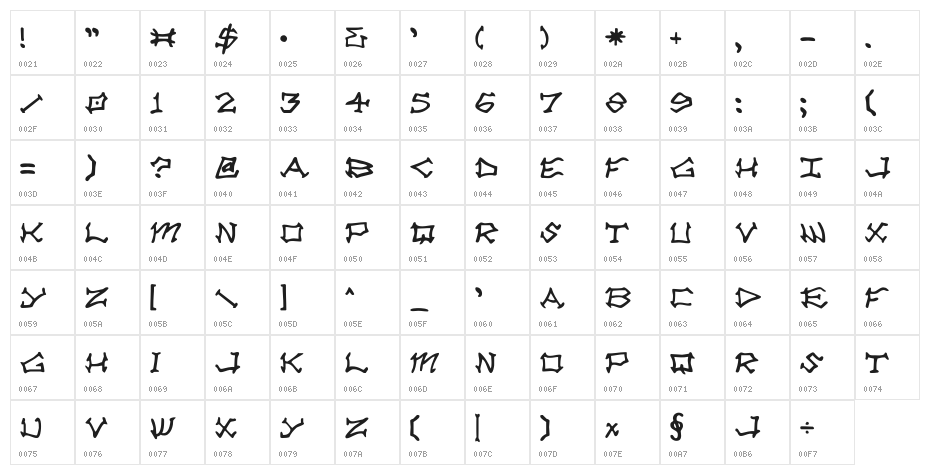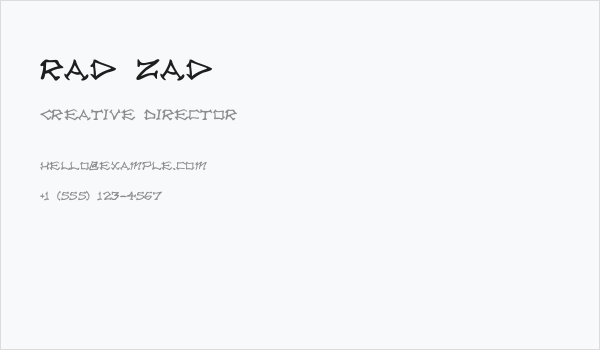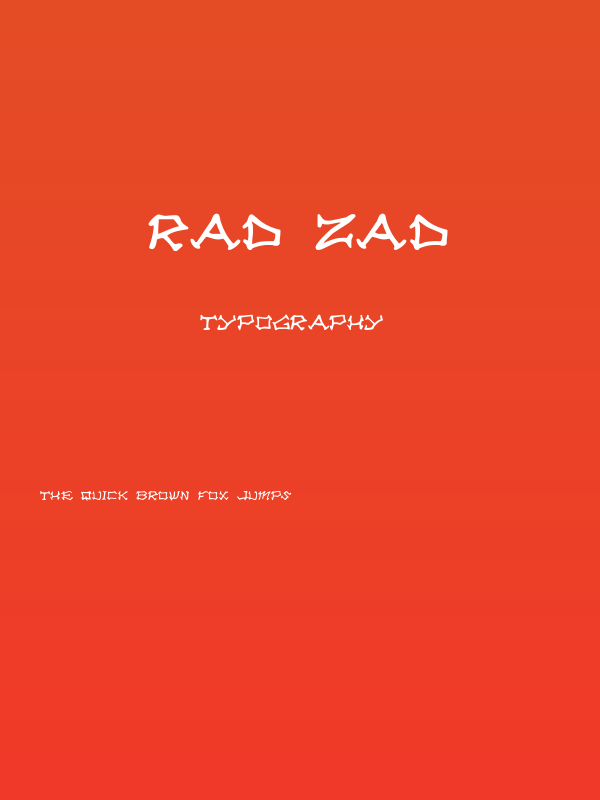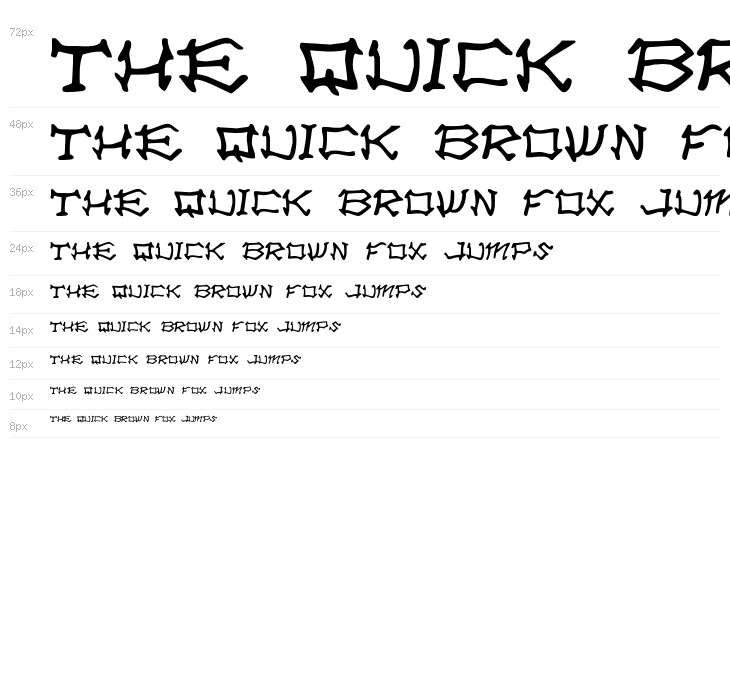
Rad Zad Font
Rad Zad Description
This font features a bold and edgy design with a graffiti-like appearance. The characters are irregular and dynamic, with sharp angles and a hand-drawn feel. The uppercase and lowercase letters maintain a consistent style, emphasizing a rebellious and urban aesthetic. Numbers and special characters follow the same energetic and unconventional design, making the font suitable for projects that require a bold statement. The overall look is both artistic and modern, appealing to creative and youthful audiences.
| Overall Style | Modern, Urban, Artistic |
| Proposed Projects | Ideal for street art designs, music album covers, urban-themed posters, and edgy branding projects. |